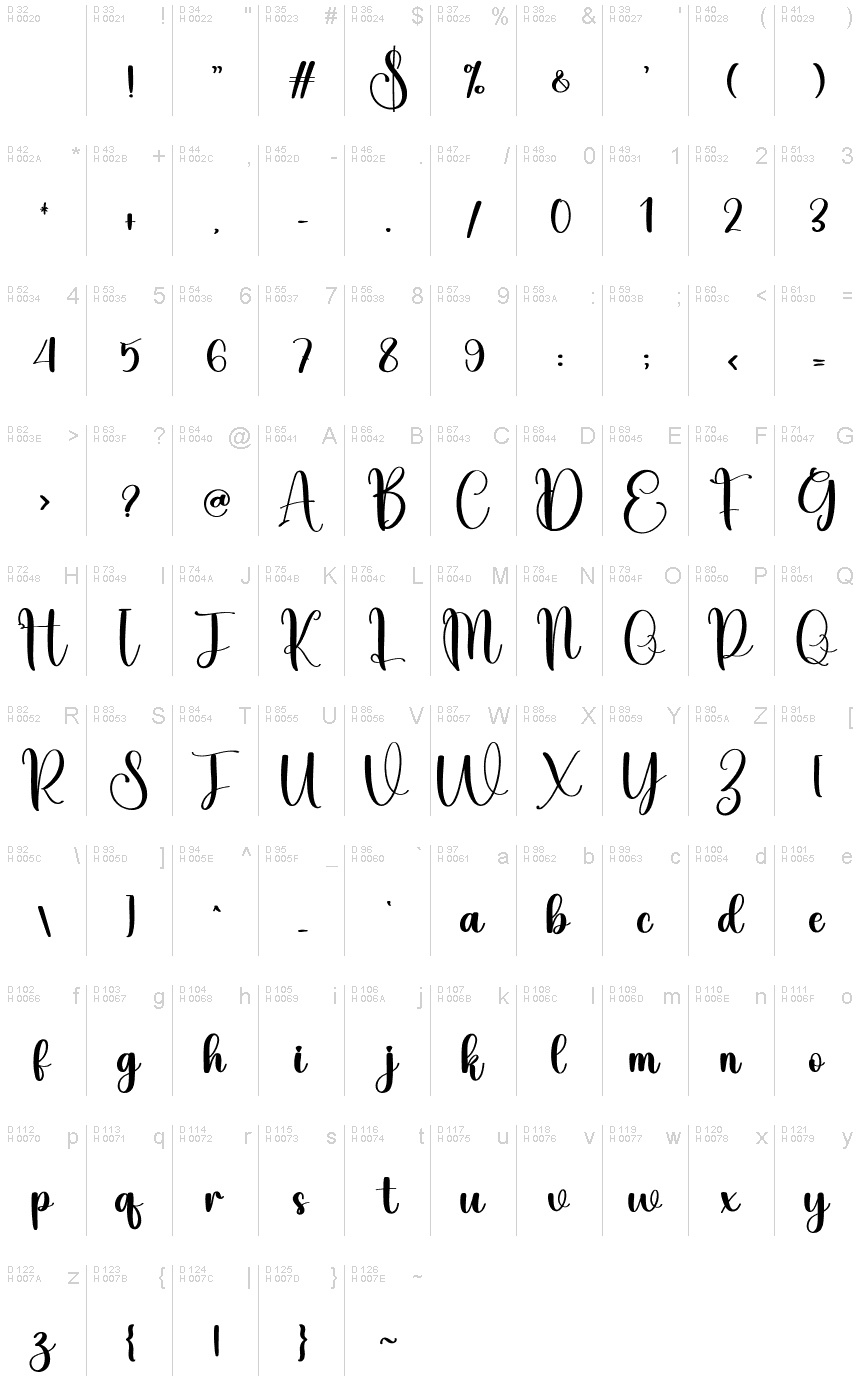
Backlight
Backlight, designed by Inermedia Studio, stands out with its authentic handwritten style that brings a personal and intimate touch to any project. The elegant curves and fluid strokes of Backlight evoke the charm of traditional calligraphy while maintaining a modern flair. Its aesthetically pleasing composition makes it an excellent choice for invitations, branding, and advertising campaigns where a touch of human warmth is desired.
The font's versatility allows it to blend seamlessly into creative endeavors ranging from sophisticated event announcements to casual blog headers. With Backlight, designers can convey messages with both grace and spontaneity, making it a go-to typeface for projects that require a bespoke feel with an accessible appeal.